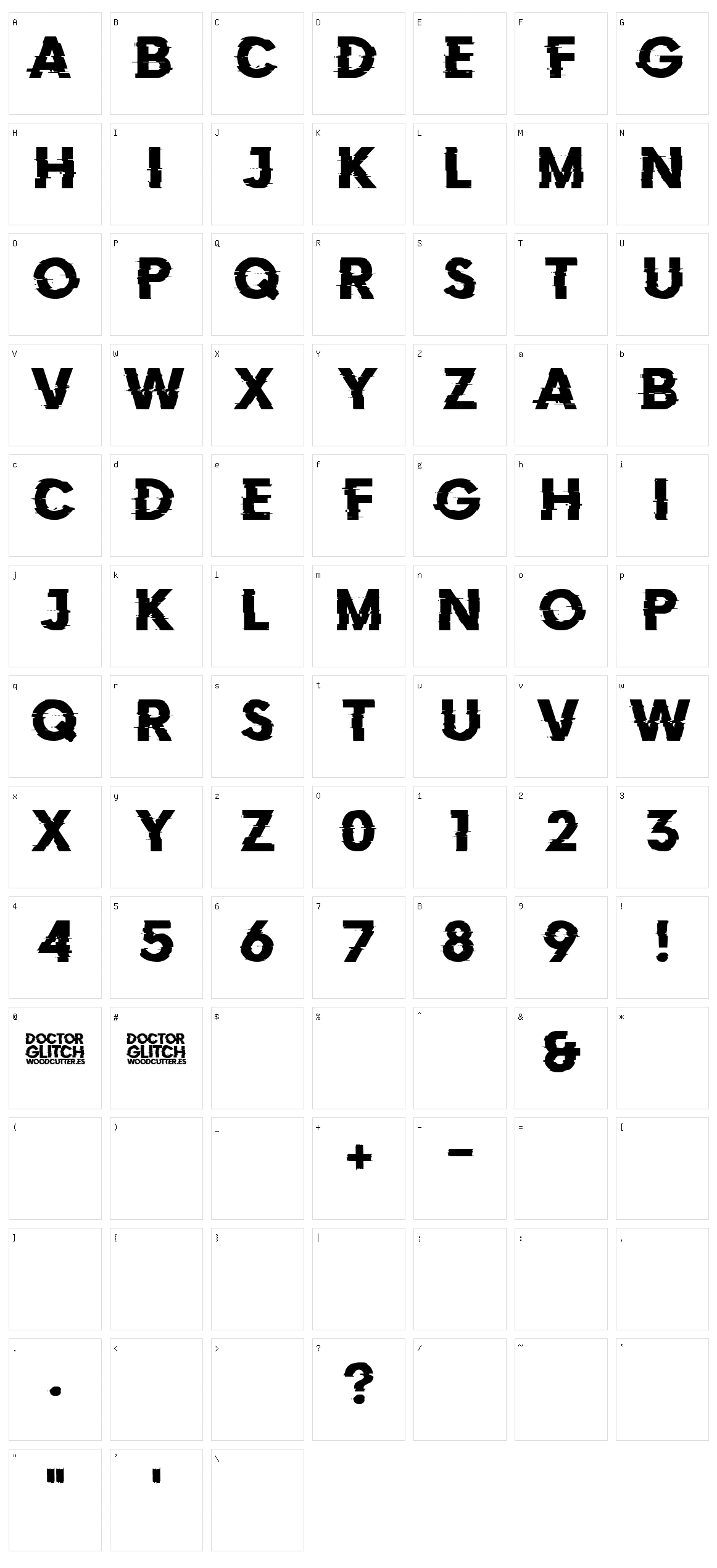
The free font Doctor Glitch is carefully designed by Woodcutter, showcasing a thoughtful balance of creativity and usability and falls under the Distorted font style. When you download the ZIP file, it contains only 82.72 KB of font files, making it lightweight and quick to download. Please review the license details below to understand permitted usage and distribution rights. If license information is not available, we recommend using this font for personal projects only or contacting the author directly for commercial usage permissions.